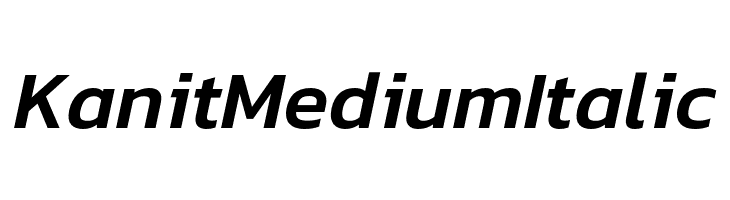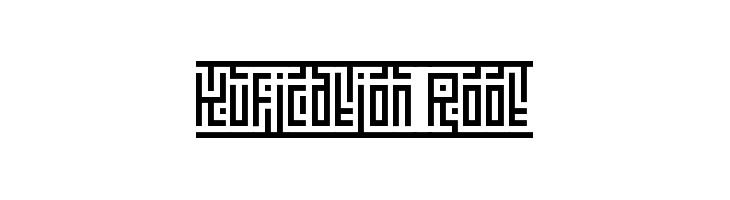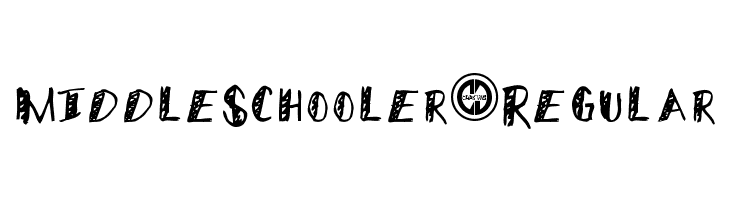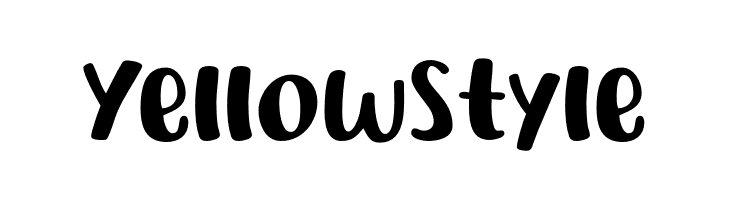
A sleek, modern font with thin, clean lines and geometric structure.
A bold, italic font with strong, angular lines and a dynamic slant.
A hand-drawn, sketch-like font with jagged lines and an edgy appearance.
A dynamic, brush-style font with an expressive, hand-drawn appearance.
A playful and elegant script font with a handwritten touch.
A playful, handwritten font with smooth, flowing lines and a casual style.
A bold, oblique font with modern, dynamic letterforms.
A hand-drawn, blueprint-inspired font with sketch-like outlines and shading.